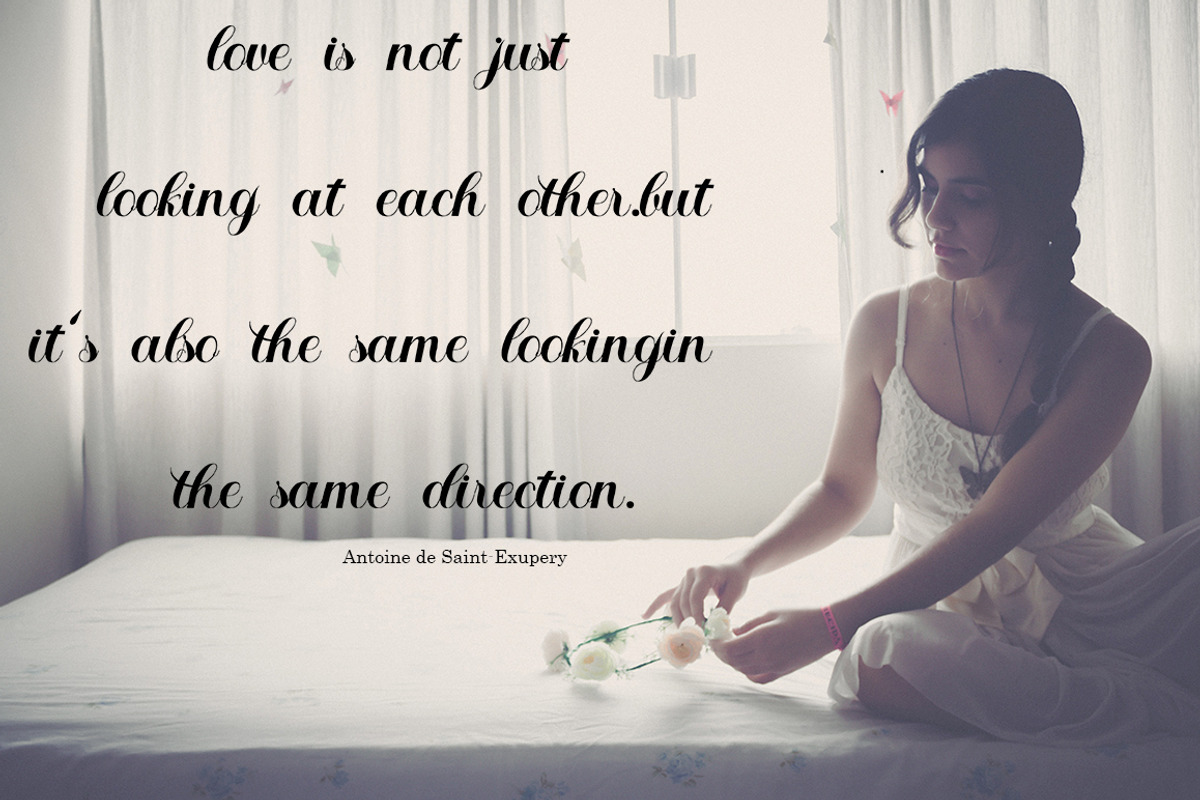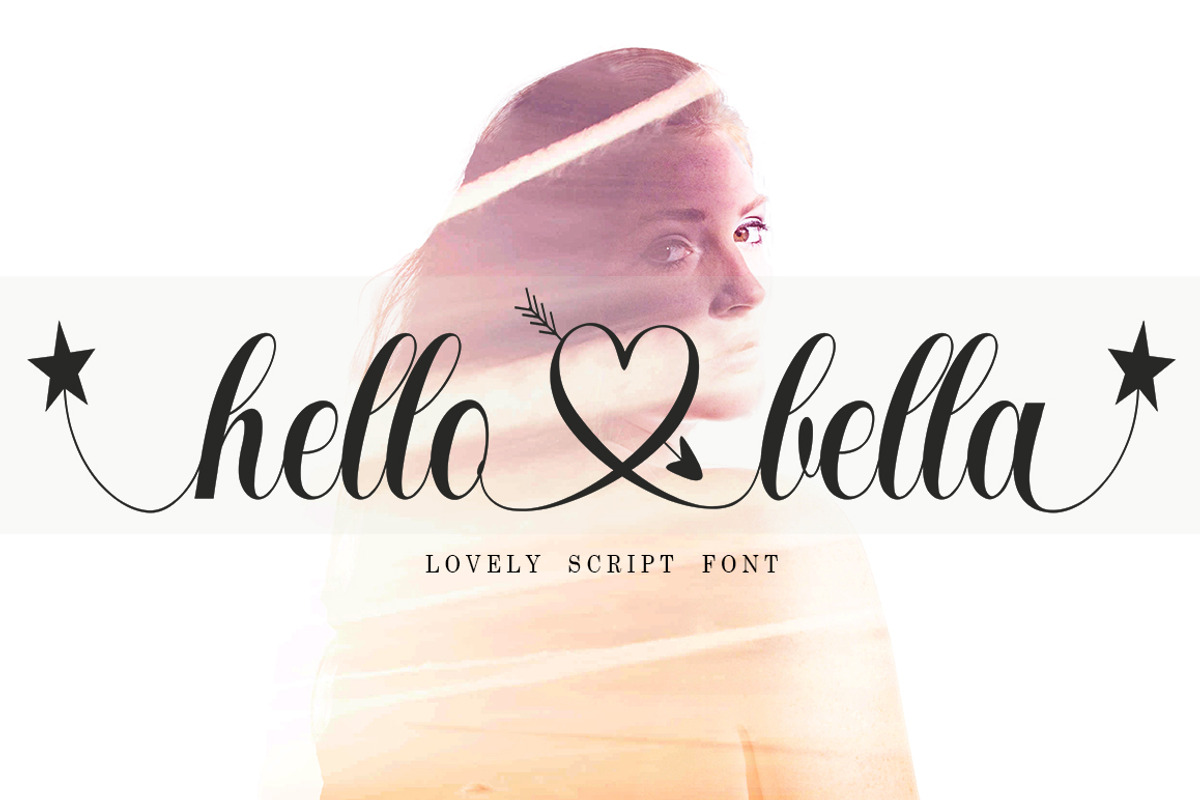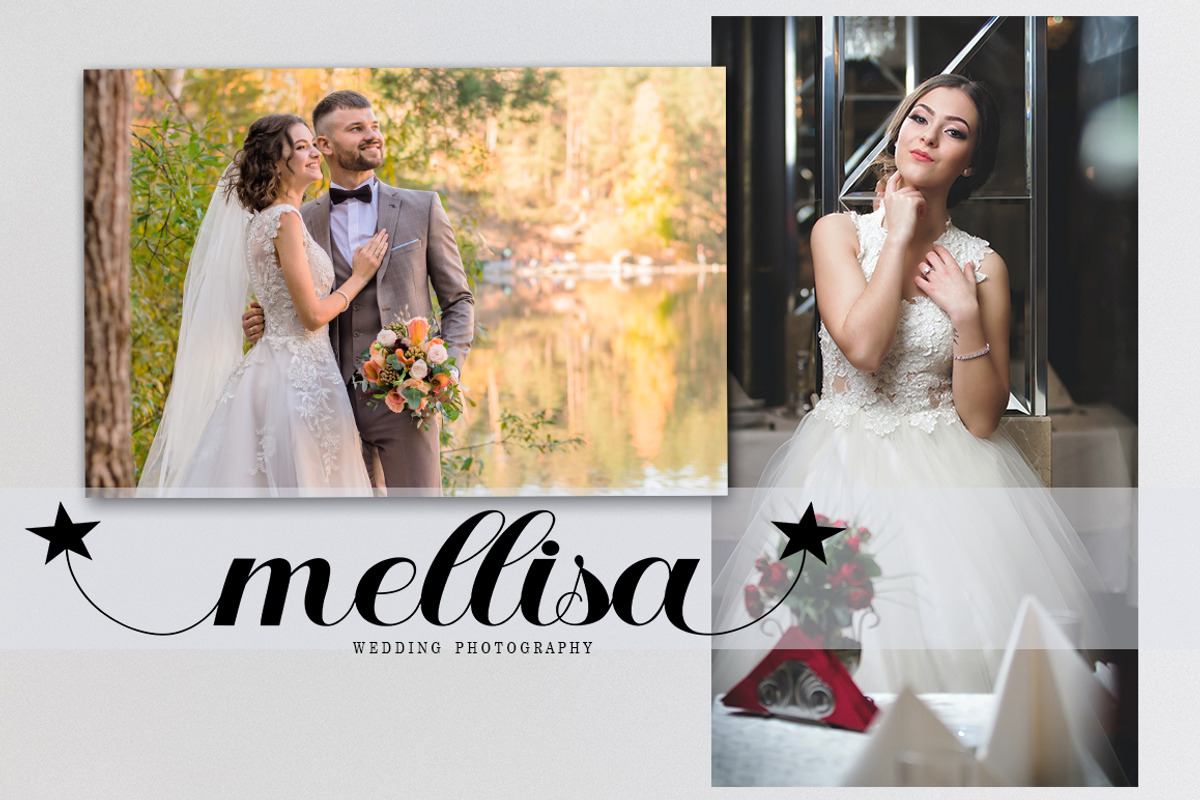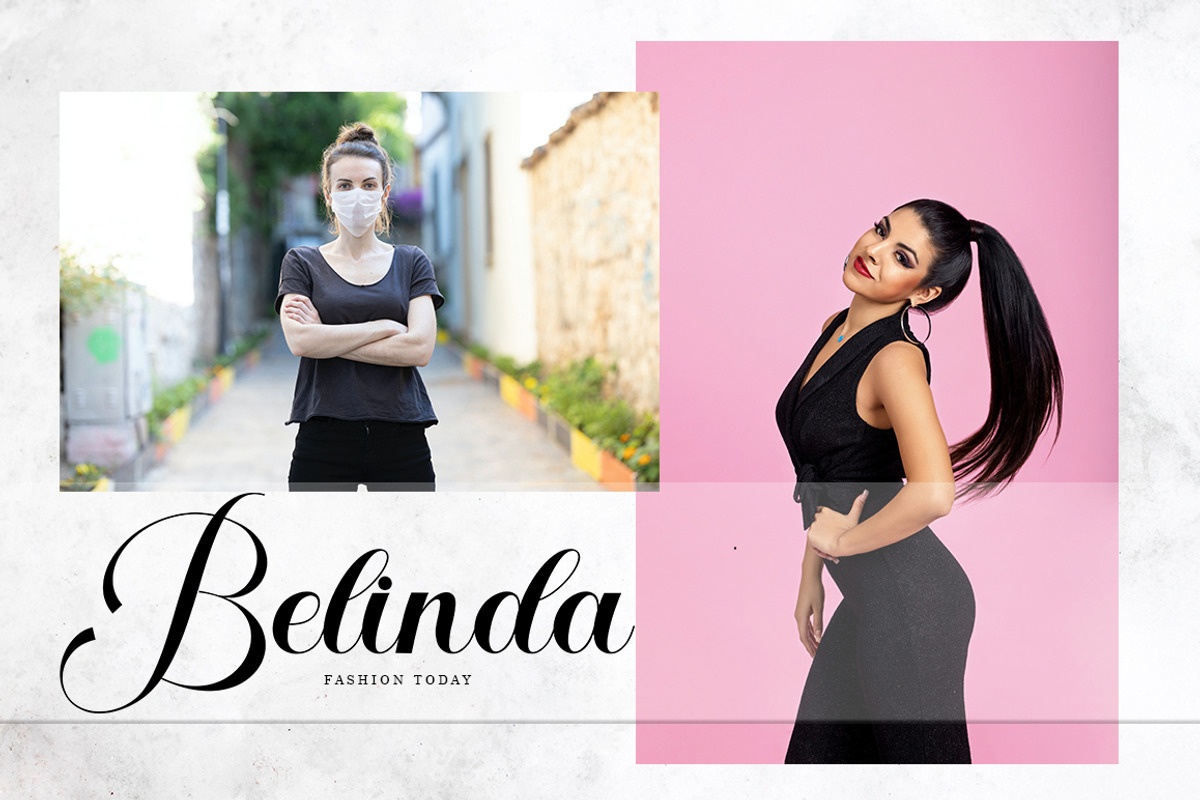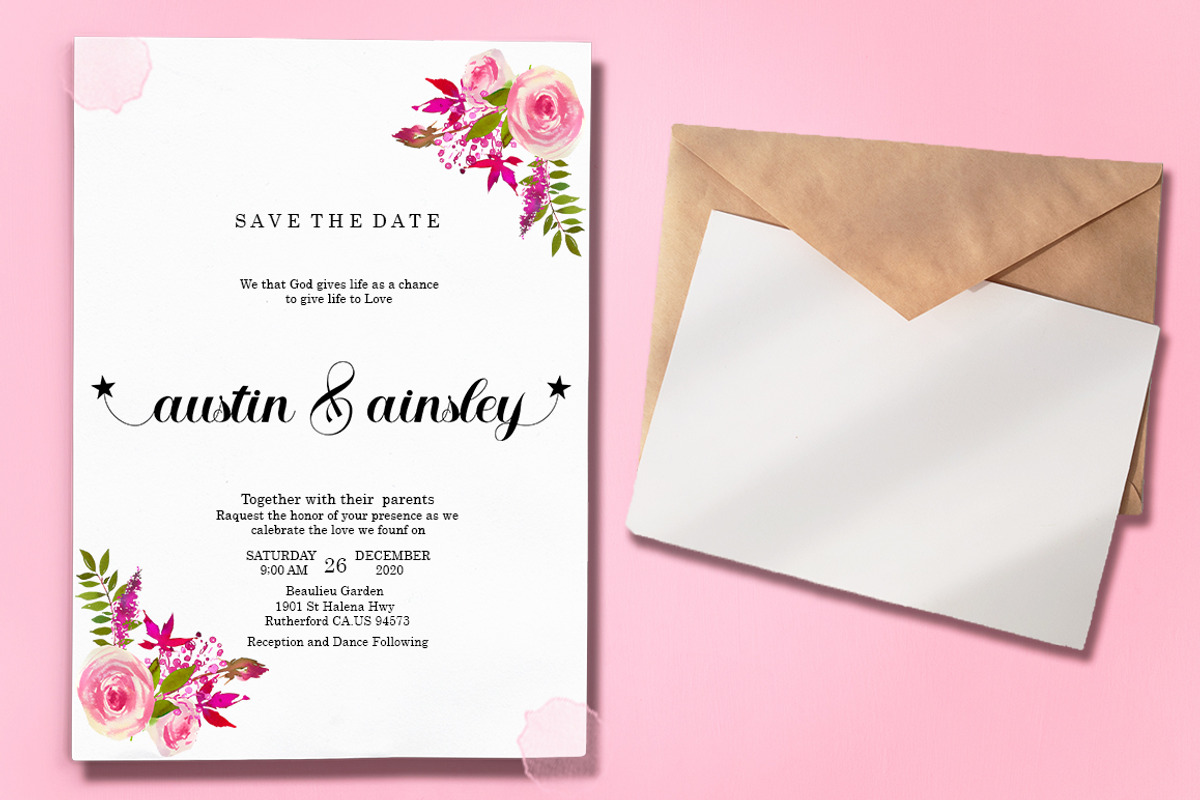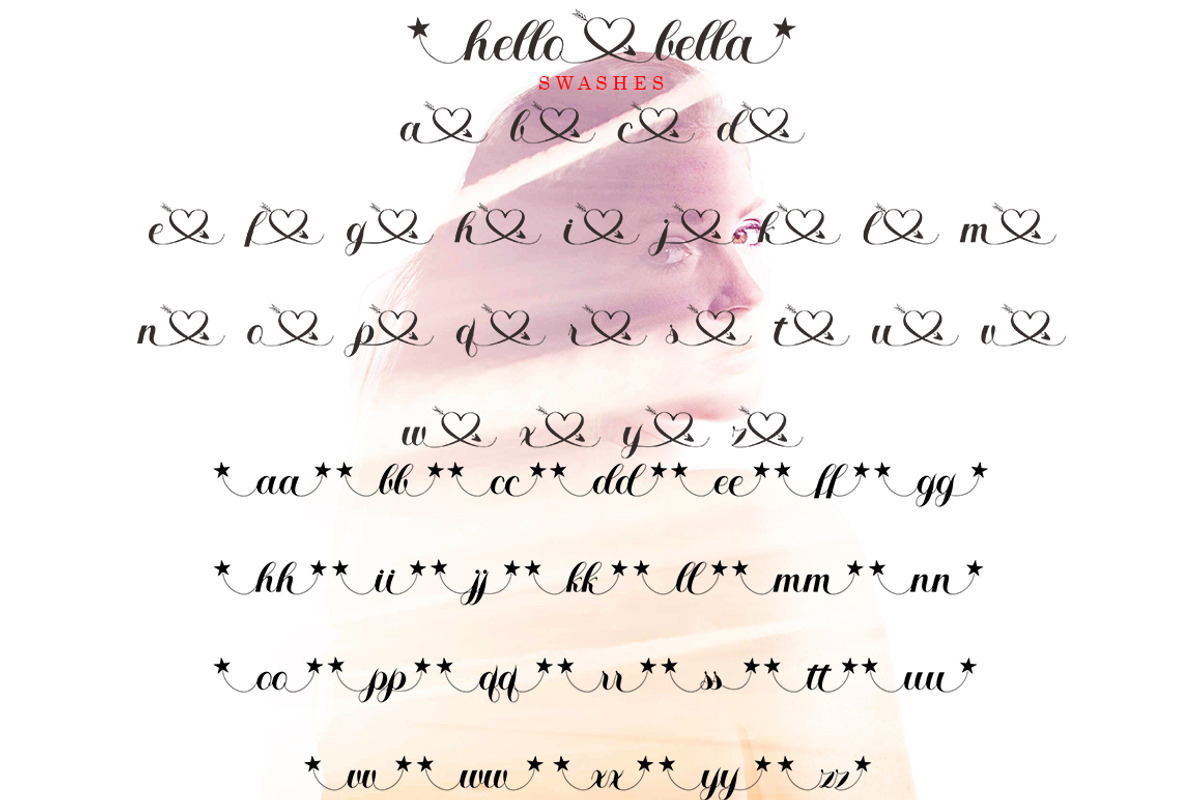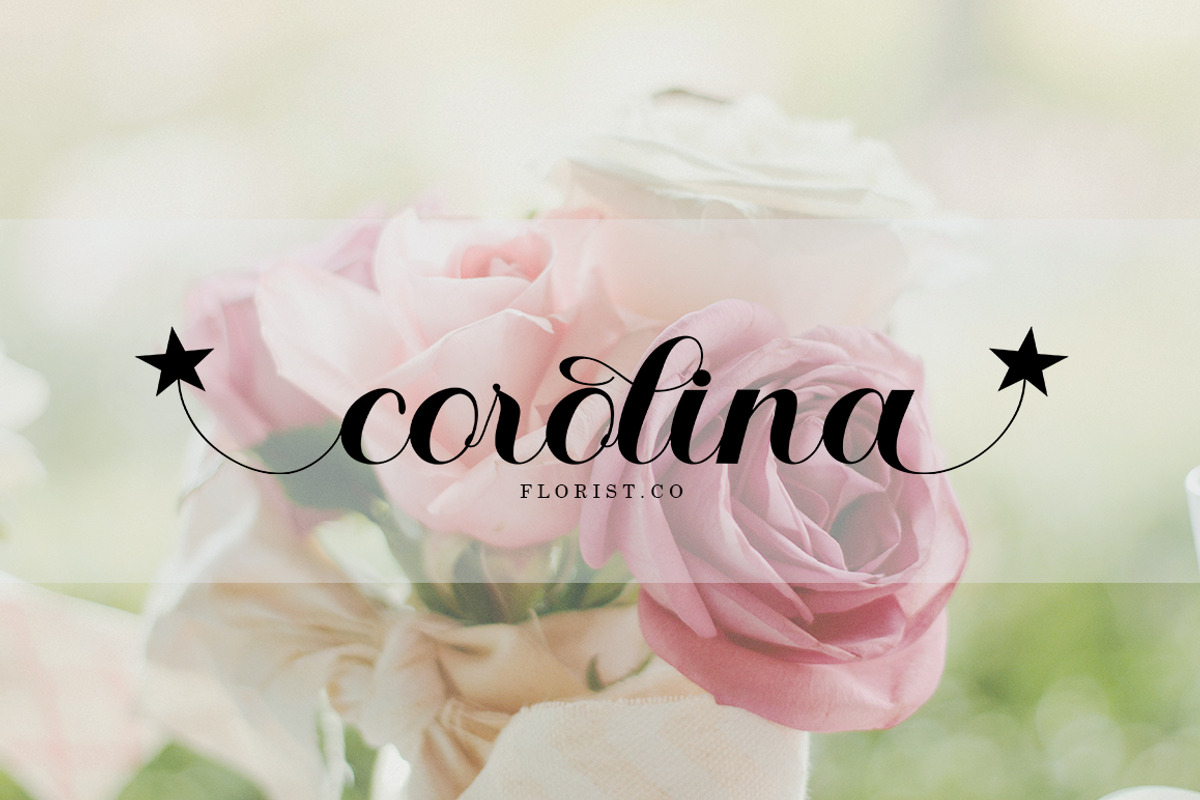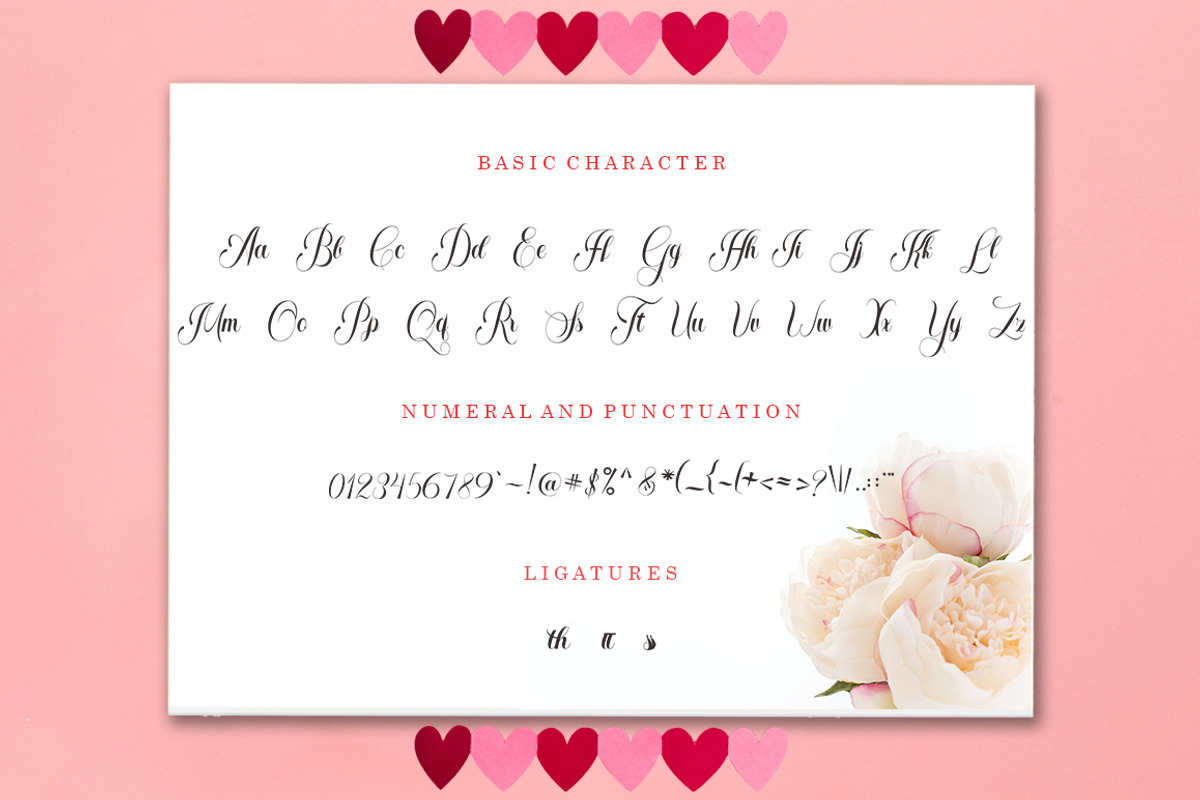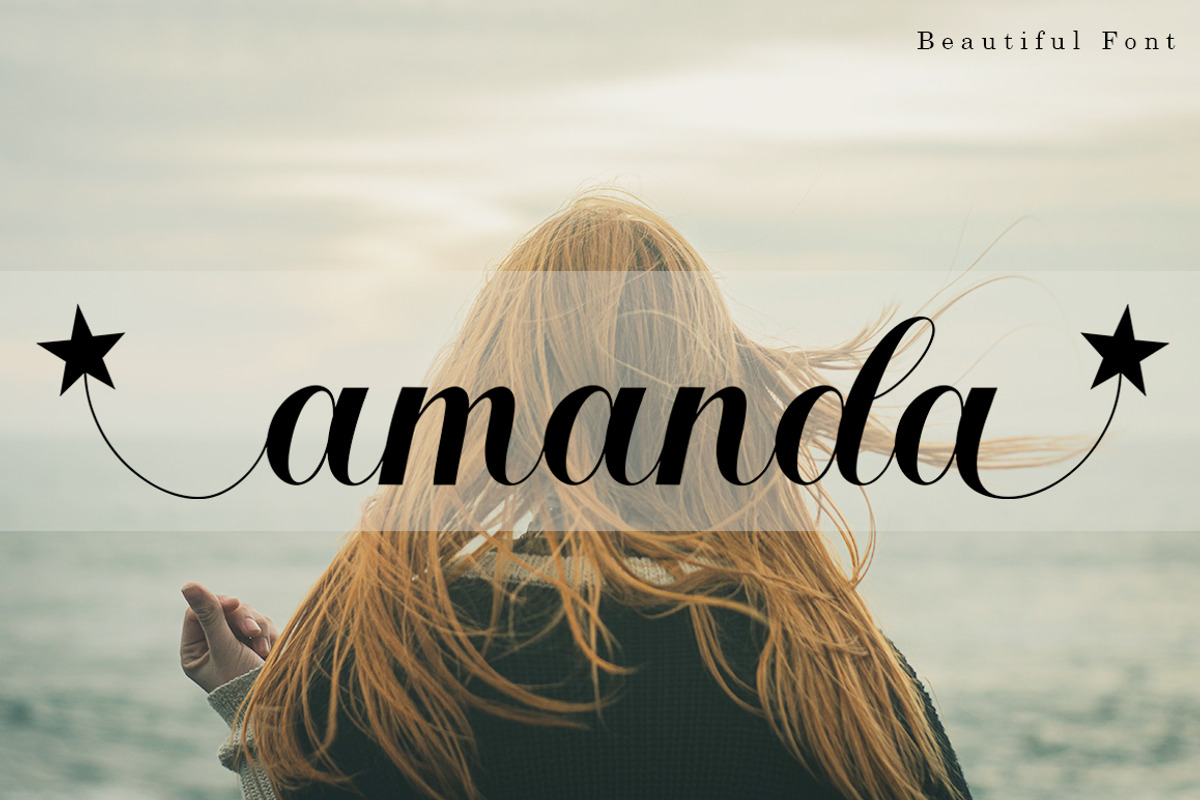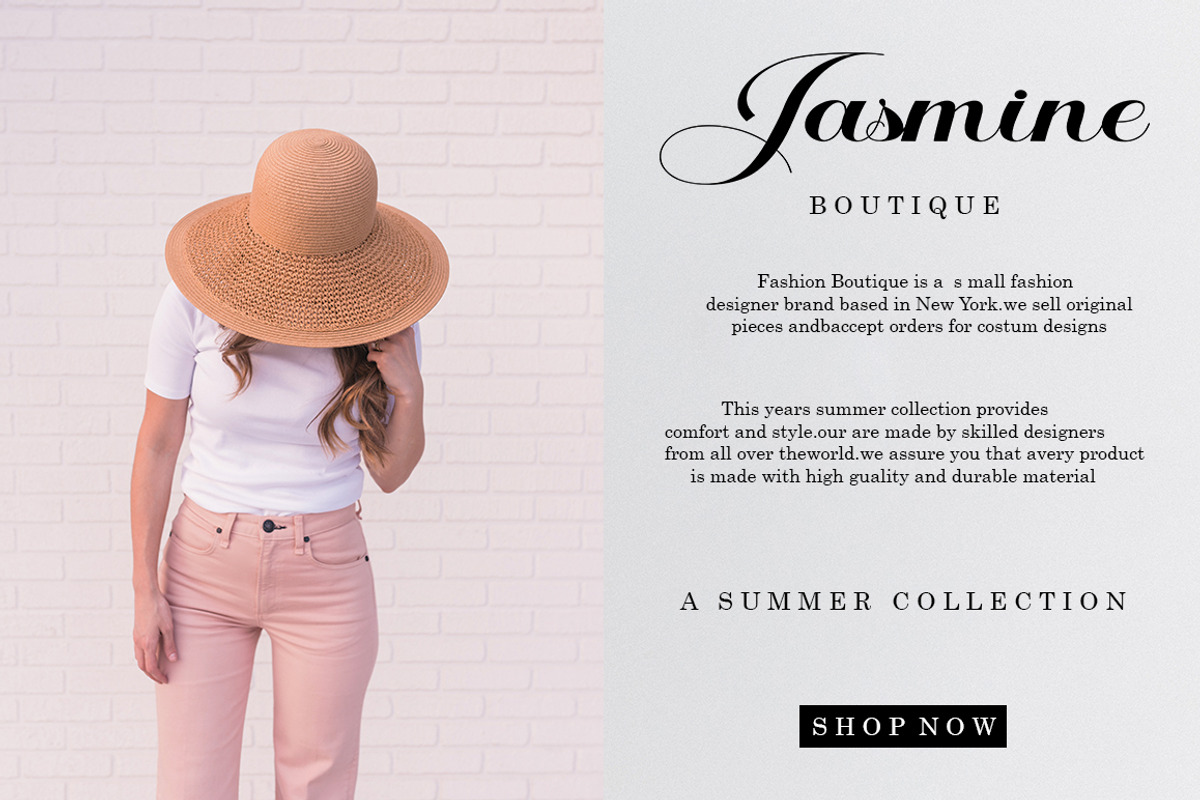
Hello Bella Script
Introducing
Hello Bella in a beautiful handwritten style. Equipped with 300 glyphs Hello Bella is perfect for branding projects, home appliance design, product packaging, use in business cards, invitation cards, etc. Simply as a stylish text overlay onto a background image or anything that requires a touch of elegance.